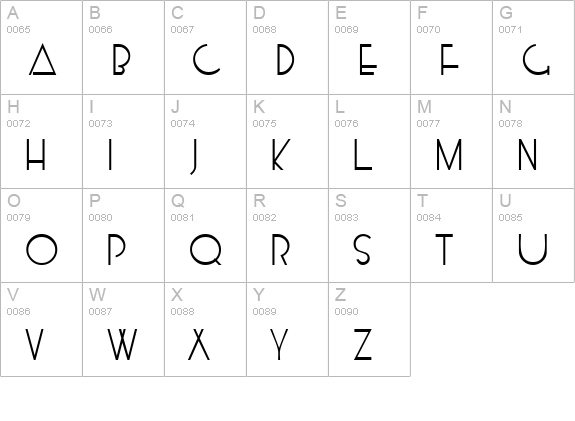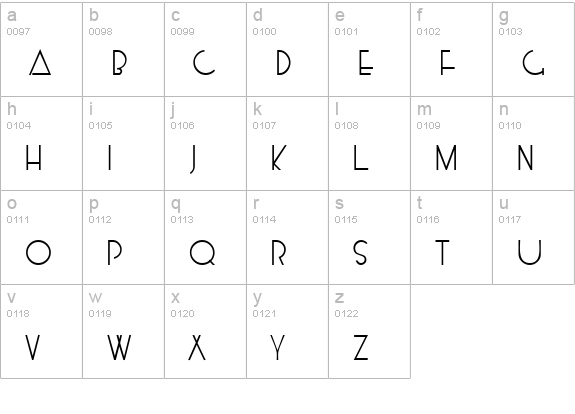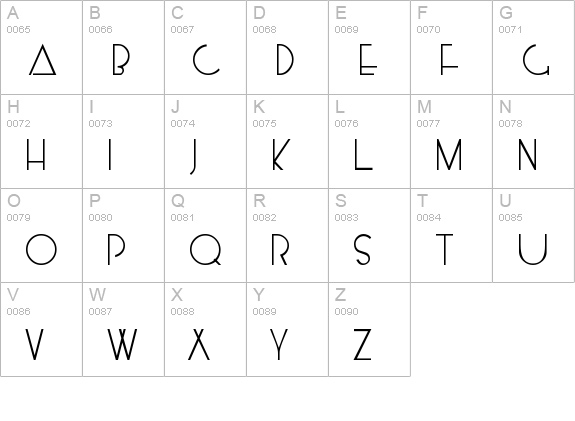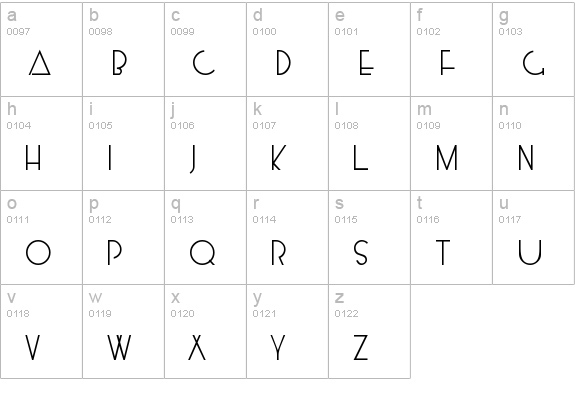
Kensington Font Details
Introducing Kensington, a timeless font that exudes elegance and sophistication. With its clean lines and classic proportions, this typeface effortlessly captures the essence of refined design. Whether used in headlines, invitations, or branding materials, Kensington adds a touch of sophistication and professionalism to any project. But what makes Kensington truly special is that it is not only a beautiful font, but it is also free! That's right, this exquisite typeface is freely available to download at FontsMarket.com. Now you can enhance your designs without breaking the bank. Designed with versatility in mind, Kensington is perfect for a wide range of applications. Its legibility and balanced letterforms make it ideal for both print and digital media. From wedding invitations to corporate presentations, this font will elevate your design to new heights. The character set of Kensington includes uppercase and lowercase letters, numerals, punctuation marks, and a variety of special characters. Its extensive language support ensures that this font can be used globally, making it an excellent choice for international projects. Featuring a refined and timeless aesthetic, Kensington is a font that will never go out of style. Its graceful curves and precise geometry make it a true work of art. Whether used in modern or traditional designs, this font effortlessly adds a touch of class. So why wait? Download Kensington now from FontsMarket.com and elevate your designs with this stunning font. With its timeless appeal and the freedom of being free, Kensington is the perfect choice for any designer looking to create something truly remarkable.